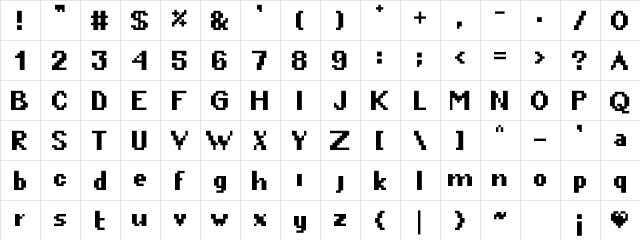
CrunchyBeef Medium Font Preview
CrunchyBeef Medium
CrunchyBeef Medium Font Details
Design Context for CrunchyBeef Typeface
CrunchyBeef takes a measured approach to typography — its balanced proportions and neutral character make it a reliable workhorse for both digital and print work.